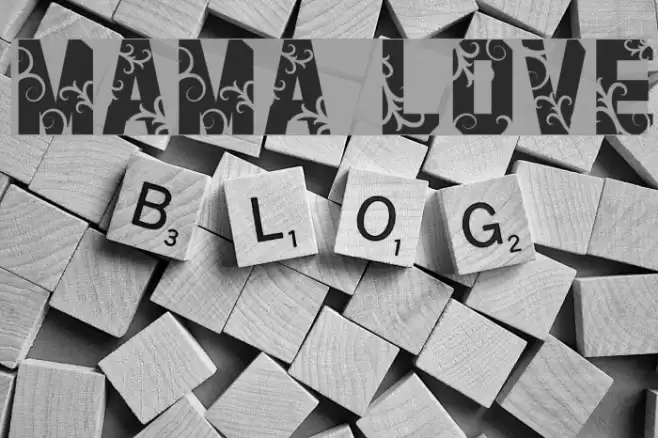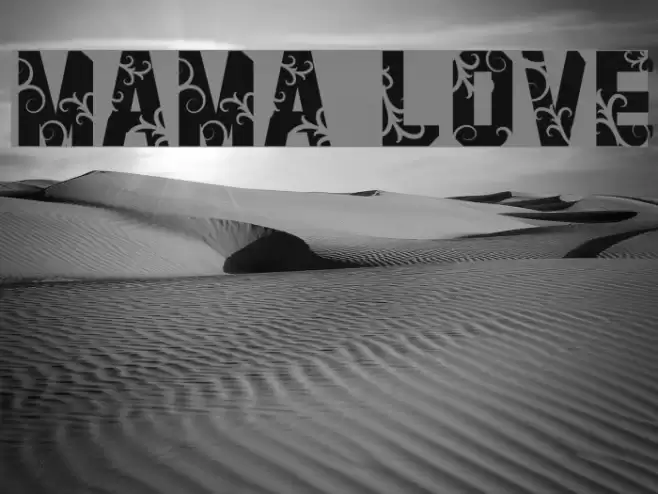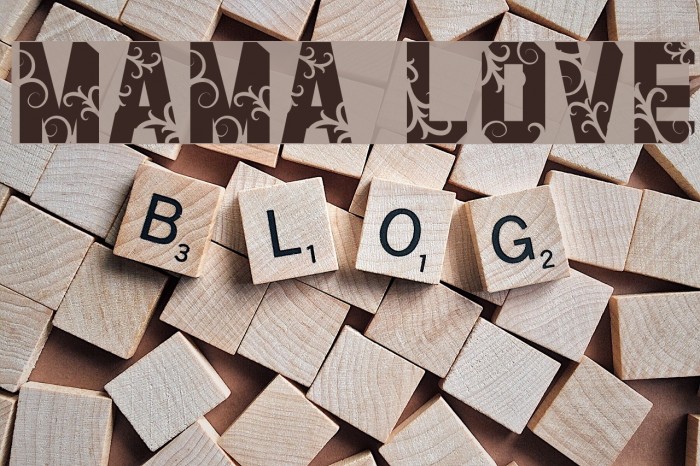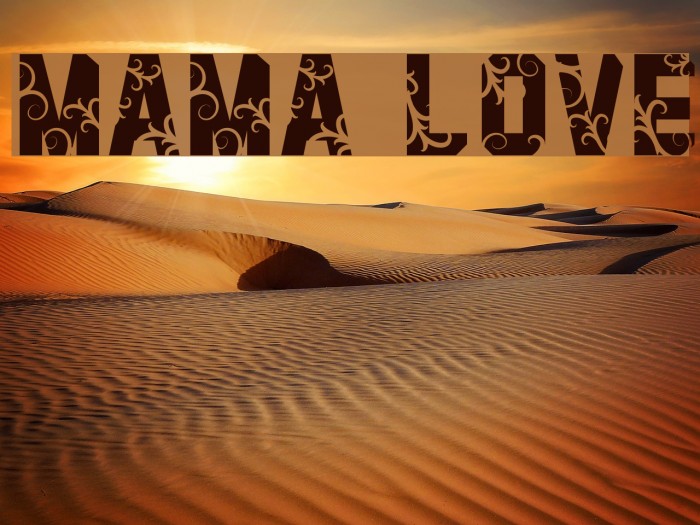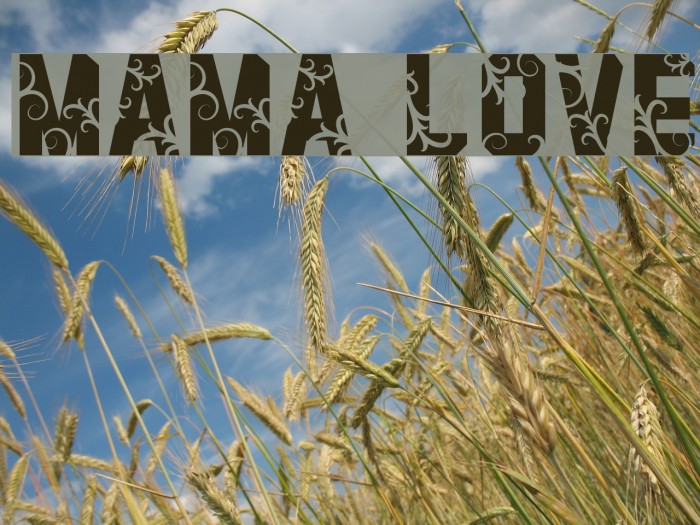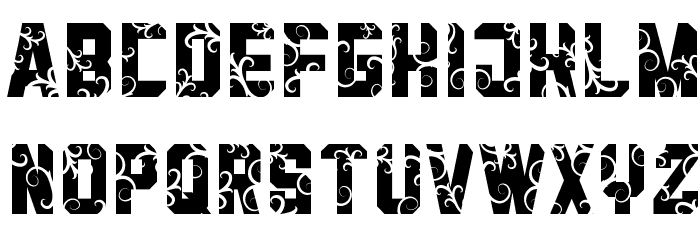
Mama Love Font
Mama Love Description
This font features a bold, decorative style with intricate floral patterns integrated into each character. The uppercase letters are designed with a strong, block-like structure, providing a solid foundation for the ornate details. The floral embellishments add a touch of elegance and complexity, making the font stand out as a unique and artistic choice. The characters maintain a consistent width, ensuring uniformity across the text. The font's decorative nature makes it ideal for projects that require a touch of sophistication and creativity.
A bold, decorative font with intricate floral patterns from Decorative fonts.
- Proposed Projects: Ideal for wedding invitations, greeting cards, branding, and decorative posters.
- Use Case: Logos, Headlines, Decorative text